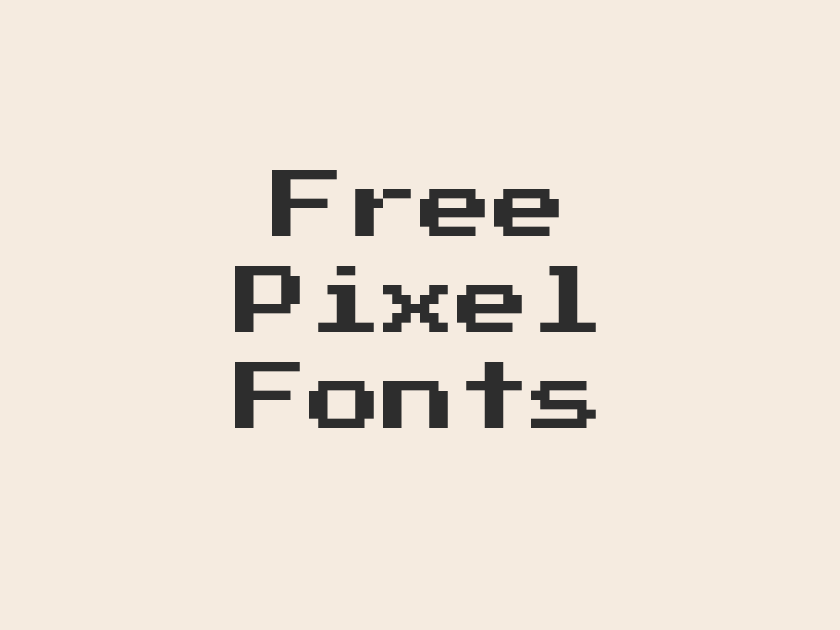
28 Best Free Pixel Fonts
Pixel fonts occupy a strange and wonderful corner of type design: they trade the smooth curves of traditional letterforms for the blocky, stair-stepped geometry of early computer screens, arcade cabinets, and 8-bit game consoles. That constraint is exactly the appeal. A well-made pixel or bitmap font can instantly summon a specific era of computing nostalgia, sell a retro gaming brand, or give a UI a playful, low-fi personality that polished sans-serifs simply cannot fake.
Free pixel fonts for games, badges, and retro web design are more plentiful on Google Fonts than most people realize, ranging from faithful 8-bit revivals to newer variable families built specifically to emulate bitmap grids at any size. The selection below covers arcade classics, scoreboard numerals, glitch effects, and LED-style counters, so there is a genuine match whether the project is a game jam title screen or a nostalgic portfolio site.
1. Press Start 2P
Insert coin to continue the adventure
Press Start 2P
No list of pixel fonts gets far without this one. Press Start 2P is modeled directly on the 8-bit arcade typefaces of the late 1970s and early 1980s, right down to the uneven, hand-drawn irregularity of the original bitmap grids.
It reads as instantly, unmistakably “video game,” which makes it perfect for splash screens, achievement badges, and game-jam branding. Keep it to short bursts of text; at long lengths or small sizes it turns into a wall of jagged blocks that fights the reader.
2. VT323
Loading level data from cartridge memory
VT323
VT323 channels the glow of an old DEC VT320 computer terminal rather than a game console, and that lineage shows in its slightly rounded, scanline-friendly strokes. It is monospaced, narrow, and surprisingly legible even at body-text sizes, which sets it apart from most bitmap fonts built purely for headlines.
Designers reach for it constantly for hacker-movie interfaces, command-line themed portfolios, and code-adjacent branding where a full 8-bit arcade look would be too cartoonish.
3. Silkscreen
High score achieved on level three
Silkscreen
Silkscreen has been a staple of pixel web design since long before variable fonts existed, and it still holds up. Every letter sits on a tight, almost square bitmap grid, giving it a stamped, screen-printed quality that feels more like a hardware label than a typeface.
It comes in both regular and bold weights, so it can carry a full interface rather than just a logotype. Use it for buttons, badges, and short UI labels; body copy set in Silkscreen quickly turns dense and hard to scan.
4. Pixelify Sans
Friendly pixels for playful app interfaces
Pixelify Sans
Pixelify Sans softens the usual pixel-font harshness with rounder terminals and a friendlier rhythm, making it feel more like a mobile game mascot than an arcade cabinet. It comes in a genuine weight range from regular through bold, which is rare for this category and makes it far more versatile for actual interface work.
It pairs nicely with a plain sans for body copy, reserving its charm for headings, buttons, and onboarding screens.
5. DotGothic16
Retro arcade signage glowing in Akihabara
DotGothic16
Born from Japanese dot-matrix signage and early digital displays, DotGothic16 carries a distinctly different flavor from the American 8-bit look, closer to a train station departure board or a retro Japanese arcade marquee. Its Latin and Japanese glyphs share the same tight dot grid, which makes it a smart pick for bilingual retro-tech projects.
6. Tiny5
Tiny sprites, mighty eight bit charm
Tiny5
Tiny5 lives up to its name: an extremely compact bitmap face meant for the smallest UI text a pixel game can throw at it, like inventory labels or status readouts. It stays crisp at sizes where most display pixel fonts collapse into mush, though its charm is really limited to those tiny, utilitarian moments rather than headlines.
7. Micro 5
Every pixel counts in this world
Micro 5
Micro 5 is built around a genuinely tiny pixel grid, giving it a dense, almost circuit-board texture at small sizes. It suits HUD overlays, timestamp readouts, and other places where a game interface needs to whisper information rather than shout it.
8. Micro 5 Charted
Plot your next move on graph paper
Micro 5 Charted
This is Micro 5 redrawn against a visible graph-paper grid, and the effect is unexpectedly charming: every letterform looks like it was plotted by hand on engineering paper before being digitized. It works well for anything with a “under construction” or dev-diary feel, sketchbooks, prototype UI mockups, or indie devlog headers.
For longer interface text, consider one of the newer variable options like Bitcount or Jersey 25, which trade a little bit of retro grit for real-world readability.
These free Google Fonts cover a wide range of retro computing moods, from arcade cabinets and scoreboards to glitching CRTs and LED counters. Picking the right one is mostly a matter of matching the era and texture to the story a project is trying to tell.